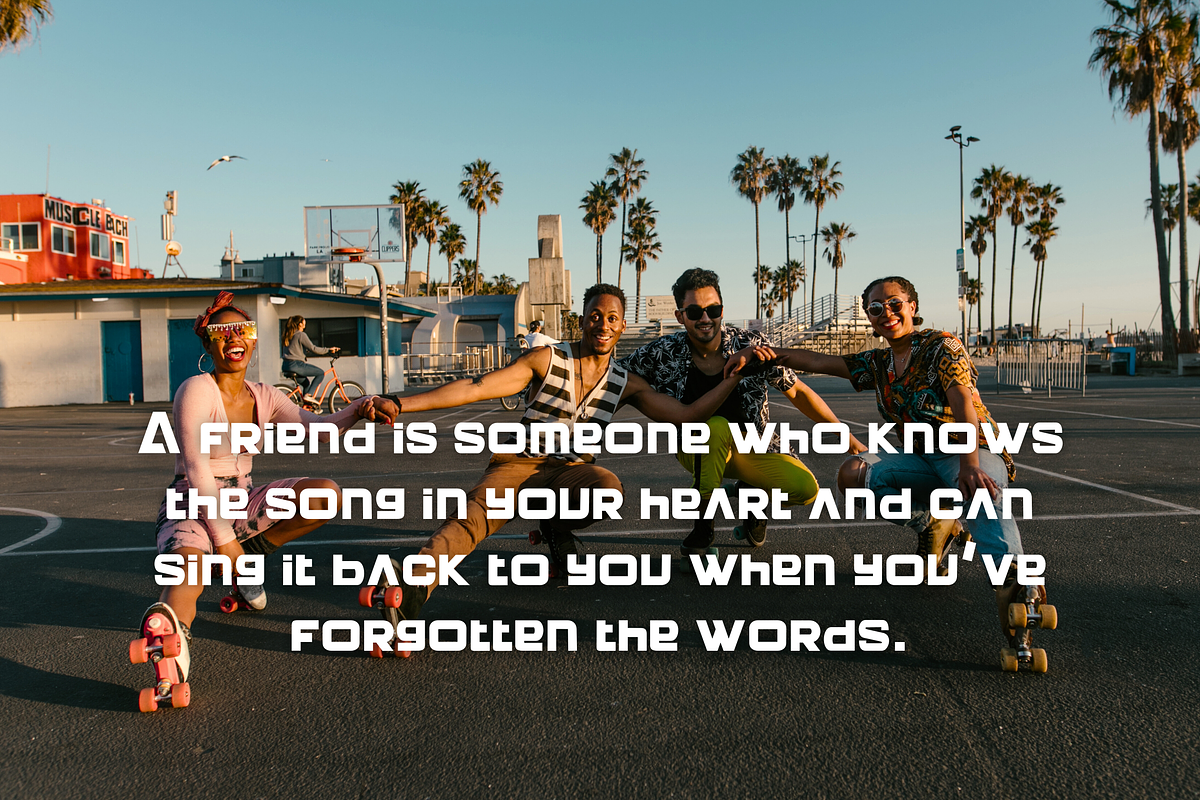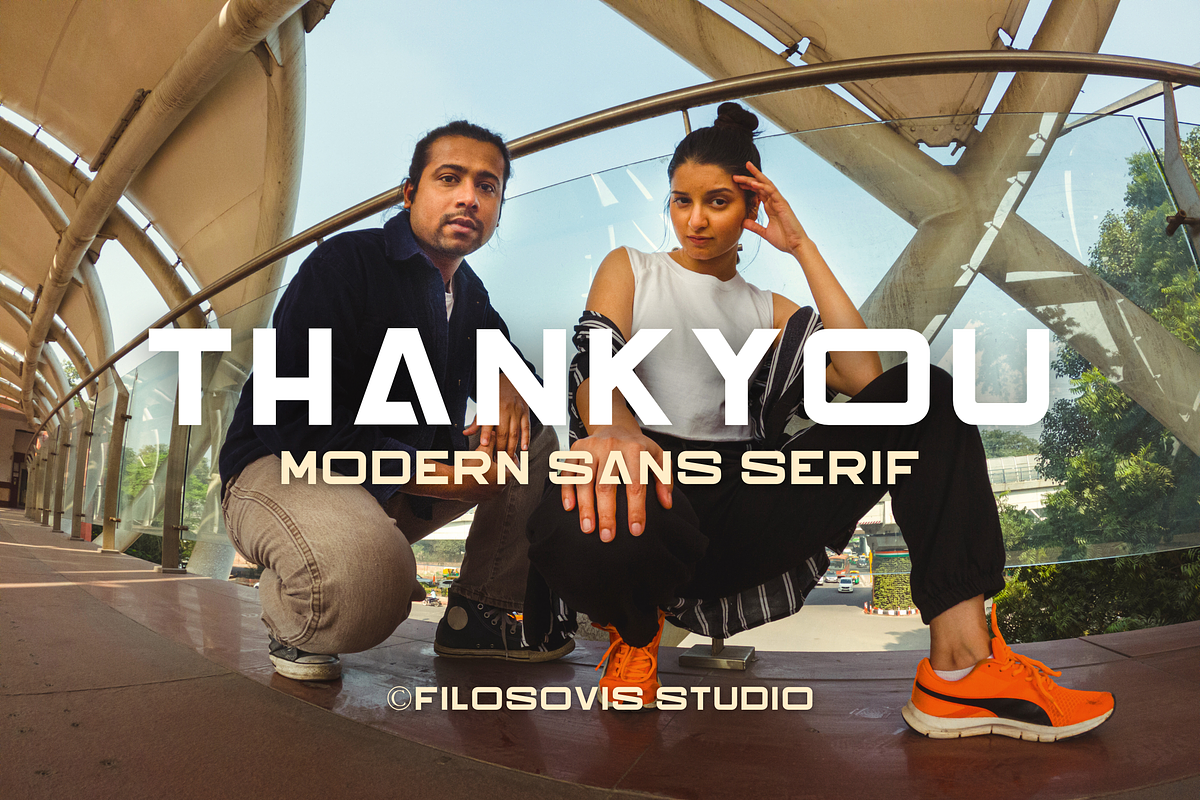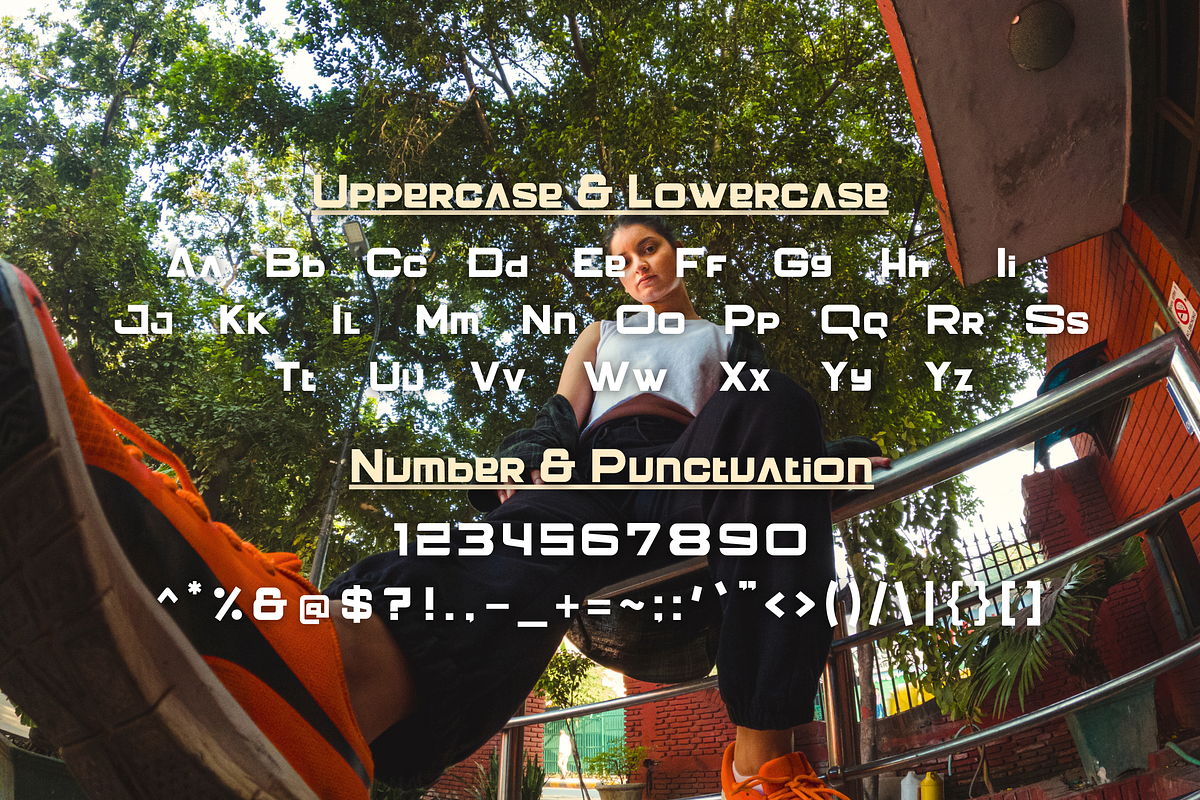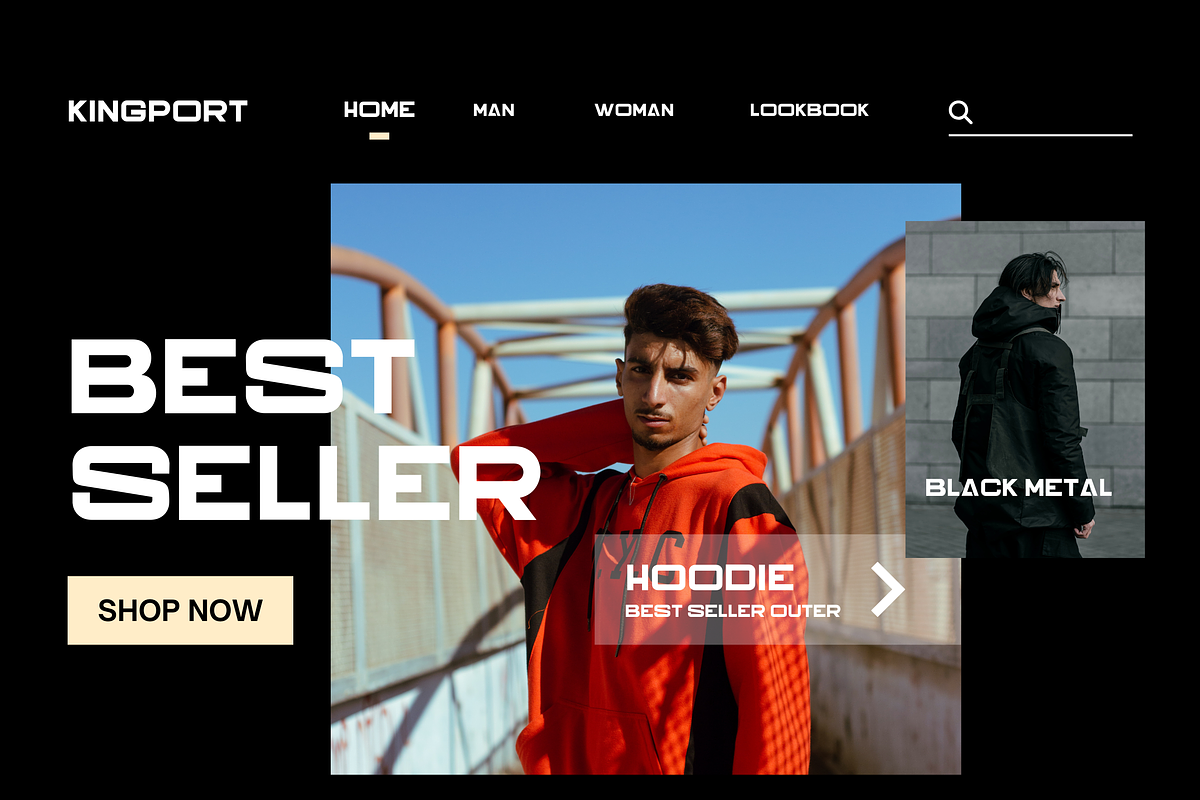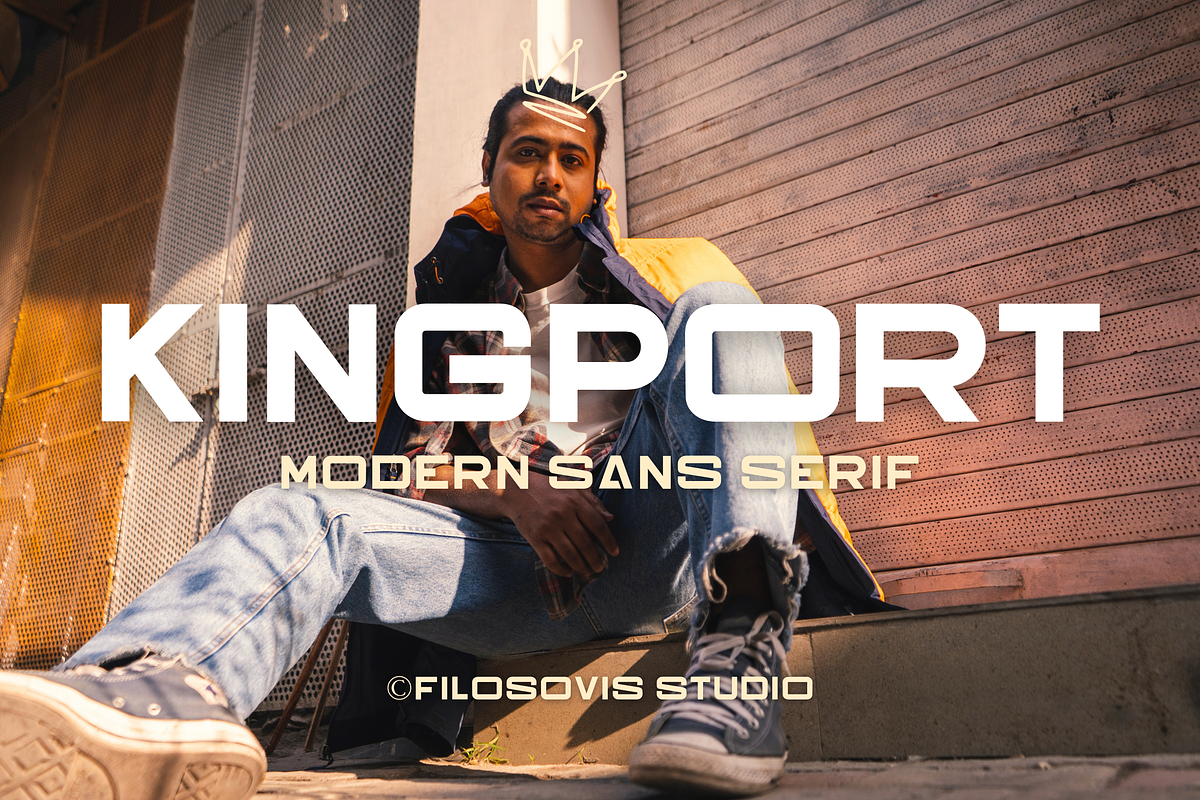
Kingport | Modern Sans Serif
Kingport is a modern Sans Serif that adds a playful twist to any design. With its whimsical letterforms and unique charm, it's perfect for eye-catching headlines, vibrant posters, and playful branding projects. Infuse your creations with joy and personality with Kingport!
- Uppercase Characters
- Lowercase Characters